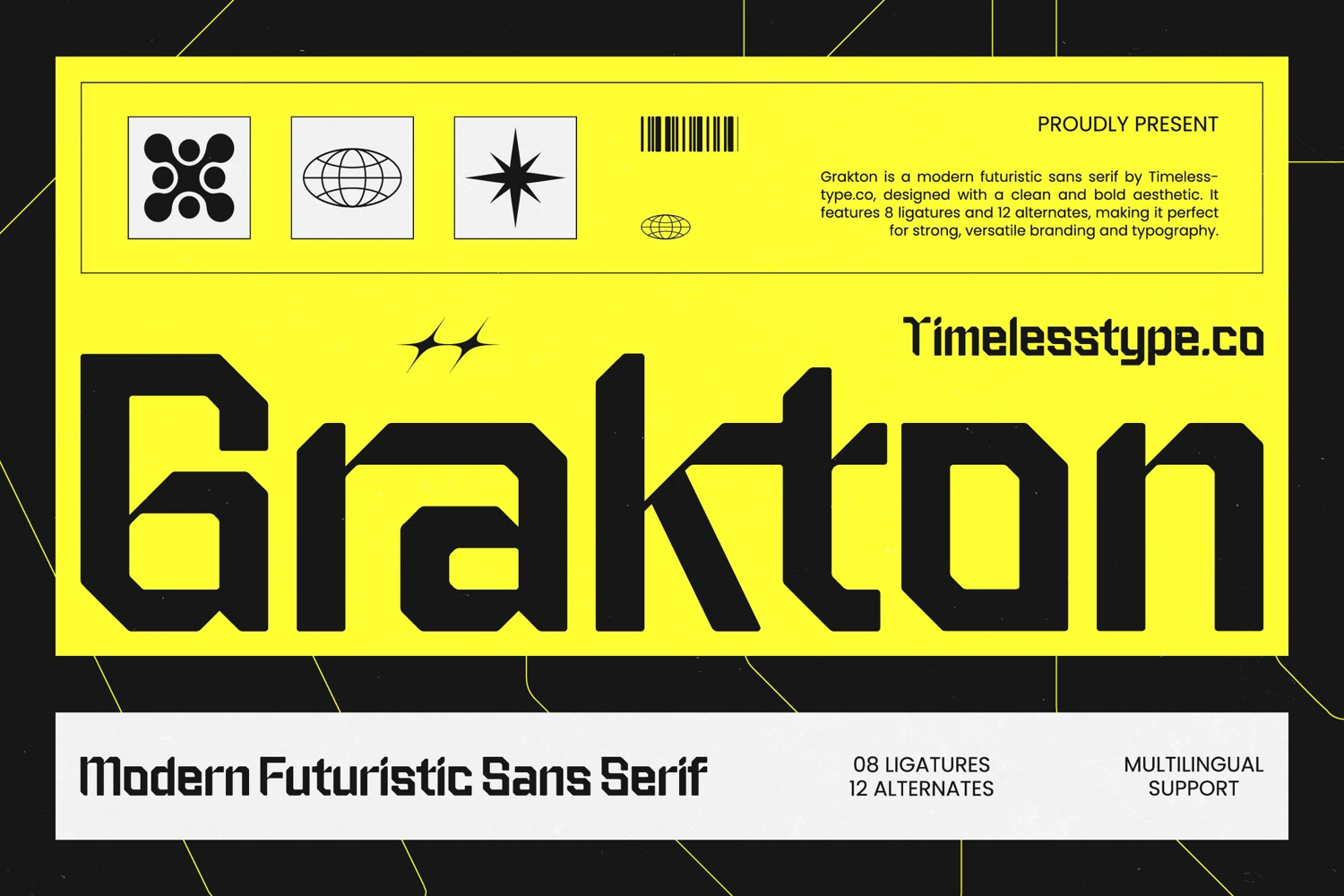
Grakton - Modern Futuristic Sans Serif
Redefine the boundaries of contemporary typography with the commanding presence of Grakton - Modern Futuristic Sans Serif. This typeface features a bold aesthetic defined by geometric precision and sharp, angular terminals that project a sense of technological advancement. Its high-impact letterforms are engineered to stand out, making it an essential asset for designers seeking a minimalist yet powerful visual language that resonates with modern audiences.
Elevate your creative workflow with professional-grade versatility and advanced OpenType features. Including 8 unique ligatures and 12 stylistic alternates, Grakton - Modern Futuristic Sans Serif provides the flexibility needed to create distinctive branding identities. With its extensive multilingual support, Grakton - Modern Futuristic Sans Serif adapts seamlessly across global markets, making it incredibly versatile for international projects and cross-cultural communication.
Designed for maximum impact, this font is the perfect choice for tech-driven branding, automotive design, and the gaming industry. It is ideally suited for luxury packaging, high-end editorial design, and bold social media graphics where visual authority is paramount. Whether utilized for large-scale headlines or modern digital displays, Grakton - Modern Futuristic Sans Serif ensures your message is delivered with unrivaled clarity and sophisticated style.